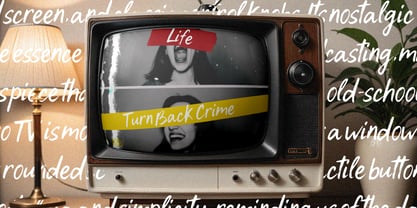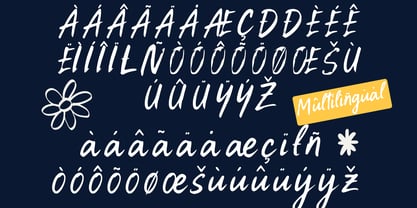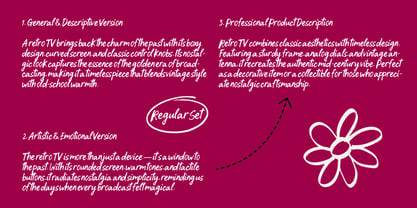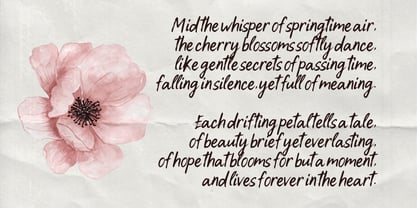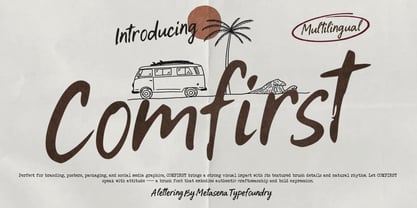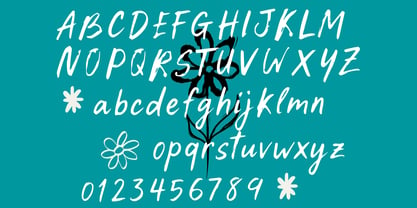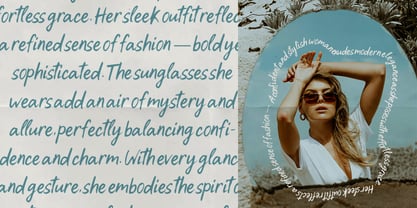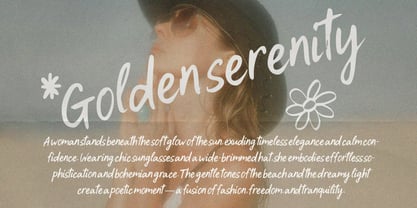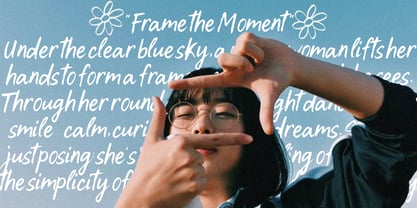
Comfirst
by Metasena Typefoundry
The Comfirst Font Family was designed by Ainal Mardiah and published by Metasena Typefoundry. Comfirst contains 1 styles. More about this family
Comfirst is a sophisticated handwritten font that beautifully blends the art of hand lettering with a sense of modern refinement. Crafted with meticulous attention to detail, each stroke of Comfirst embodies natural rhythm and expressive movement, reflecting the authenticity of true handwriting. The fluid curves and subtle texture create a harmonious balance between elegance and creativity, making it suitable for a wide range of design applications. This font was designed to convey warmth, confidence, and individuality. Its smooth lines and organic flow allow it to adapt effortlessly to various visual styles — from minimalist branding to expressive editorial layouts. Whether used for logos, packaging, invitations, or social media visuals, Comfirst adds a personal and emotional touch that enhances the overall visual identity of a brand or project. With both uppercase and lowercase characters, extensive punctuation, and multilingual support, Comfirst offers versatility without compromising its handcrafted charm. Every letter feels alive, inspired by natural handwriting and artistic expression, making it not only a design tool but also a reflection of creativity and authenticity. Comfirst is more than just a font — it’s a statement of elegance and personality, designed for creators who value the timeless beauty of handwritten design.
Designers: Ainal Mardiah
Foundry: Metasena Typefoundry